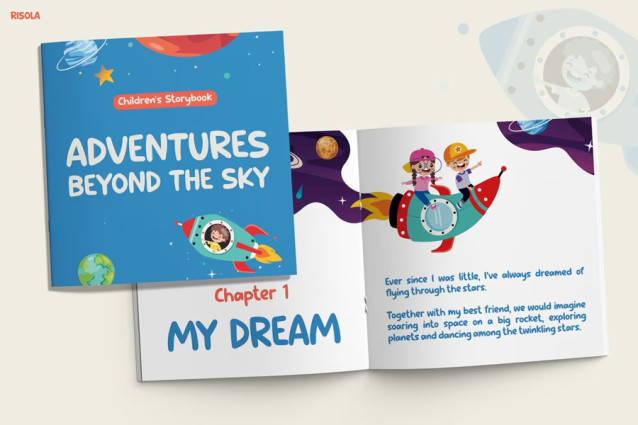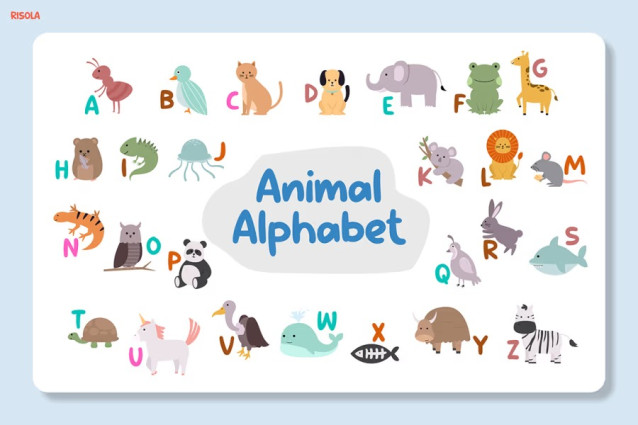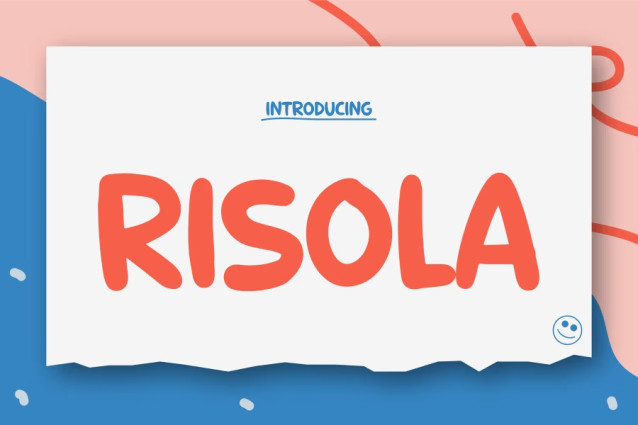
Risola Font
Risola Font is a cheerful and creative typeface that instantly brings joy to every project. Its rounded letters and soft curves make each word look friendly and full of life. Moreover, it combines the warmth of handwriting with a playful comic style, making it perfect for young readers.
This font not only looks fun but also reads beautifully. The smooth flow and clear spacing improve readability, especially for children learning to read. In addition, its balanced design helps every letter shine with clarity and personality. Whether you’re creating storybooks, posters, or classroom materials, Kids Font Risola makes your text feel bright and engaging.
While many fonts feel formal, Risola stands out with a casual and happy tone. Each stroke feels light and welcoming, encouraging imagination and positivity. Therefore, it’s ideal for projects that aim to inspire, educate, and entertain.